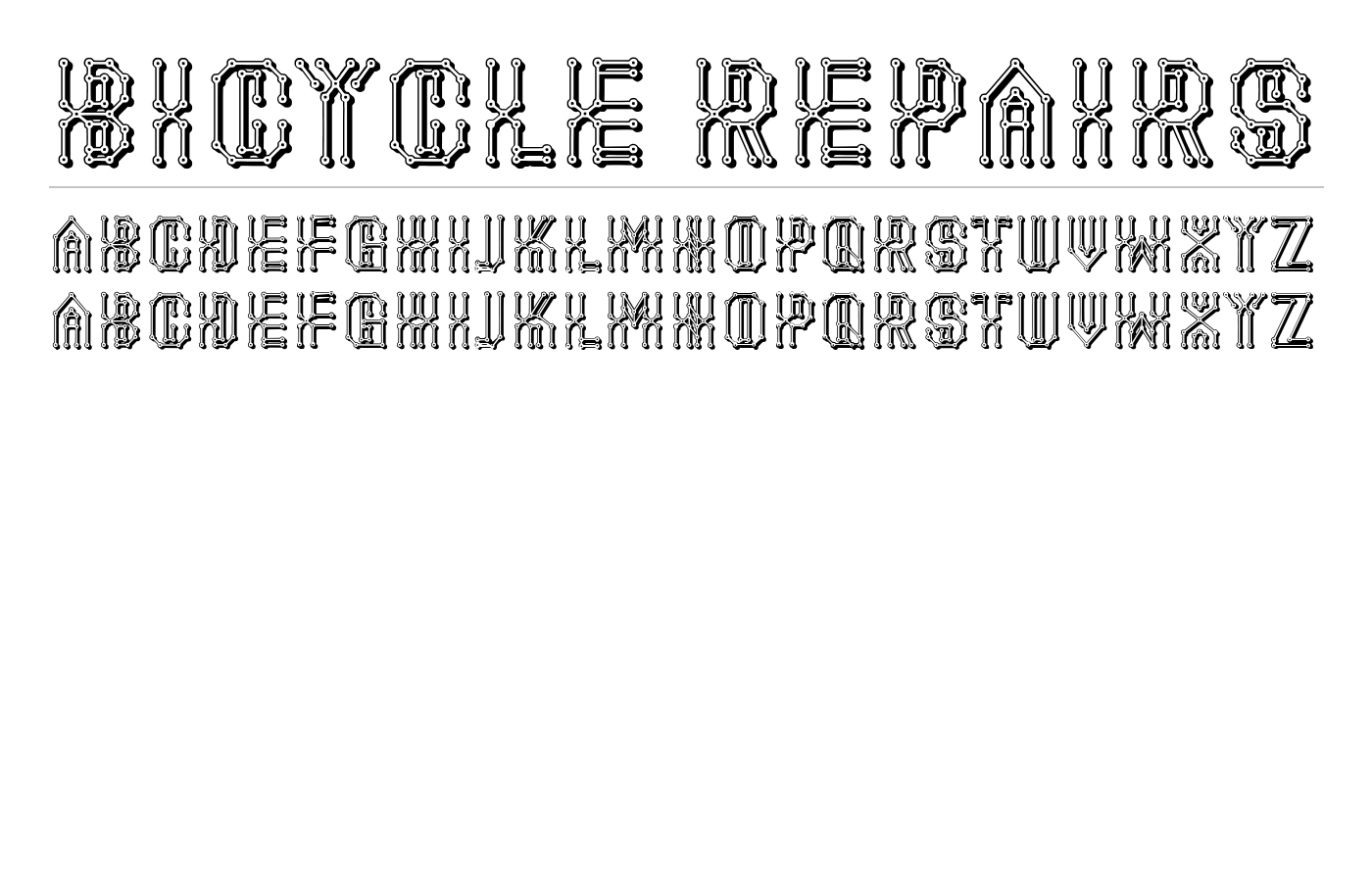
Bicycle Repairs is a distinctive display font with a mechanical, tech-inspired look, featuring monospaced, geometric letterforms that resemble bicycle chain links and connectors. Its structured, intricate design makes it ideal for impactful headlines, branding, and creative projects related to industry, technology, or cycling, where a bold, eye-catching style is desired.
Bicycle Repairs Font
About Bicycle Repairs Font